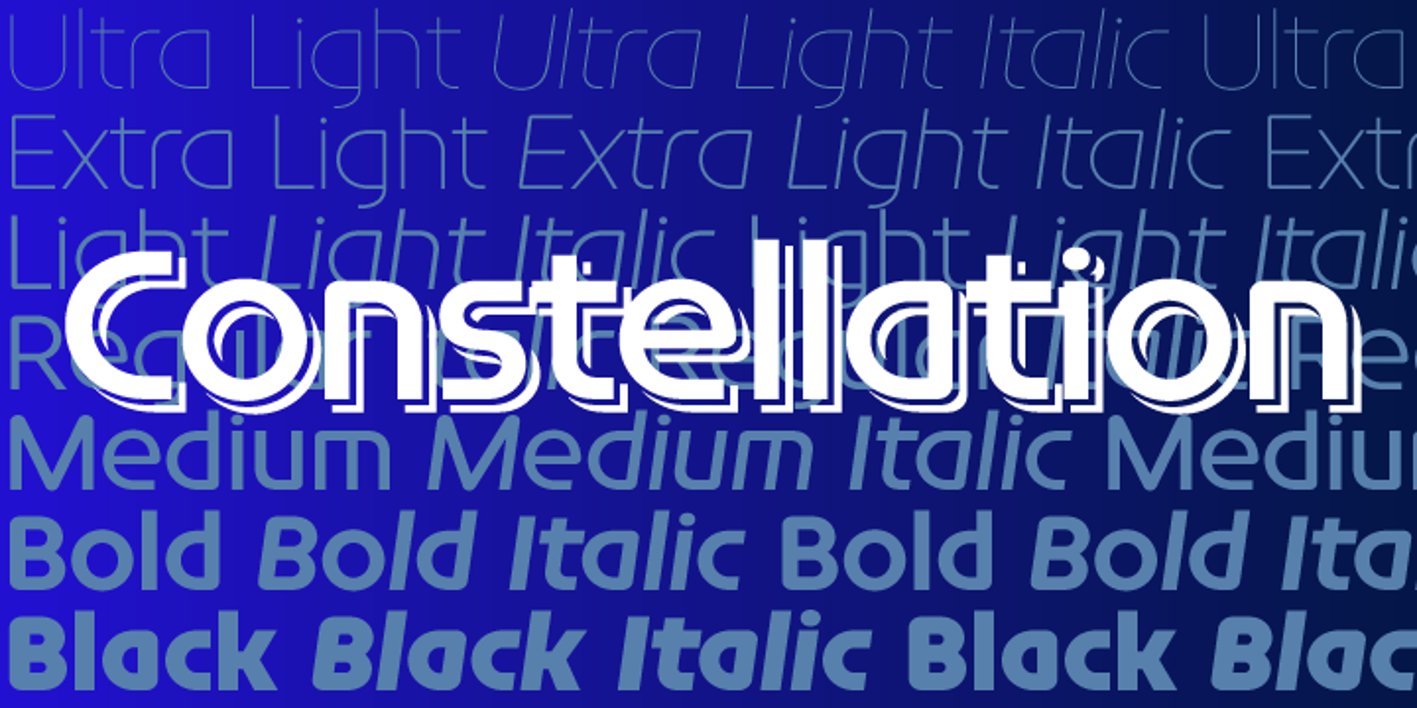
Constellation Pro Font
Constellation started with a simple geometric concept in the manner of Art Deco which gradually developed to a complete typeface, both upright and italic, total of seven weights. The concept allowed the font to be designed from Ultra Light in both very light and quite black styles. This Pro font is packed with all European and Cyrillic alphabets, small caps, variable figure sets and features .